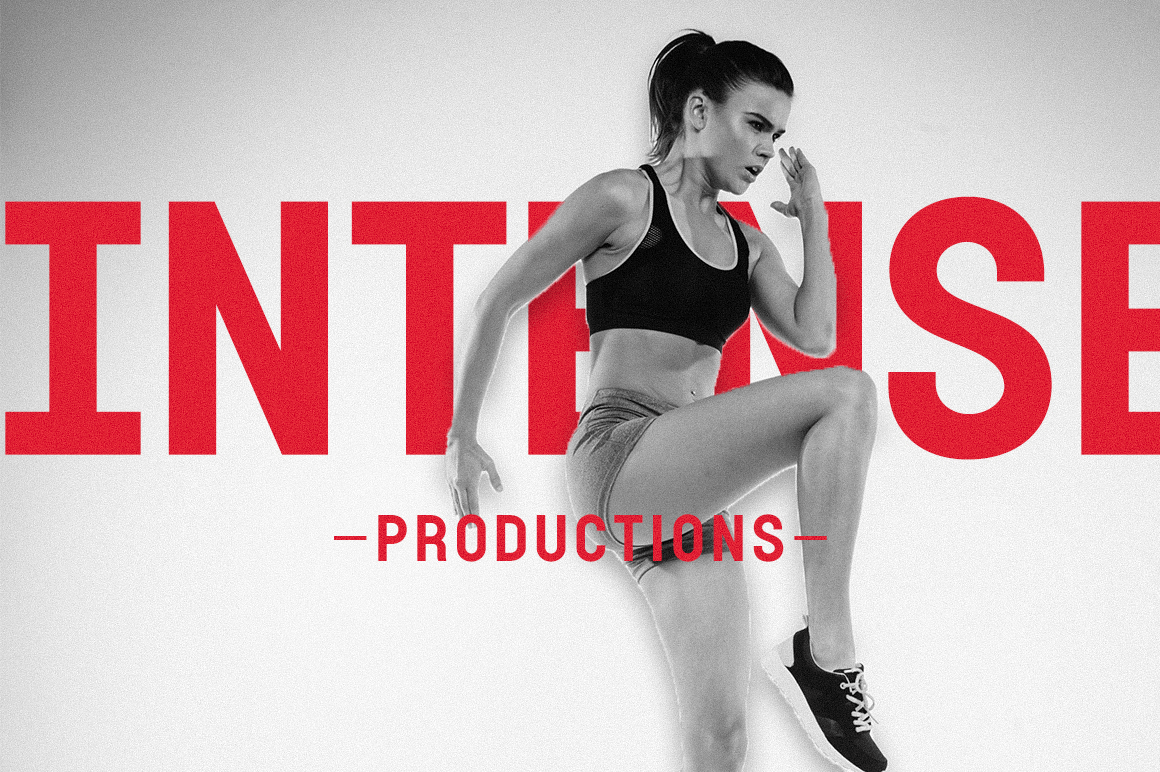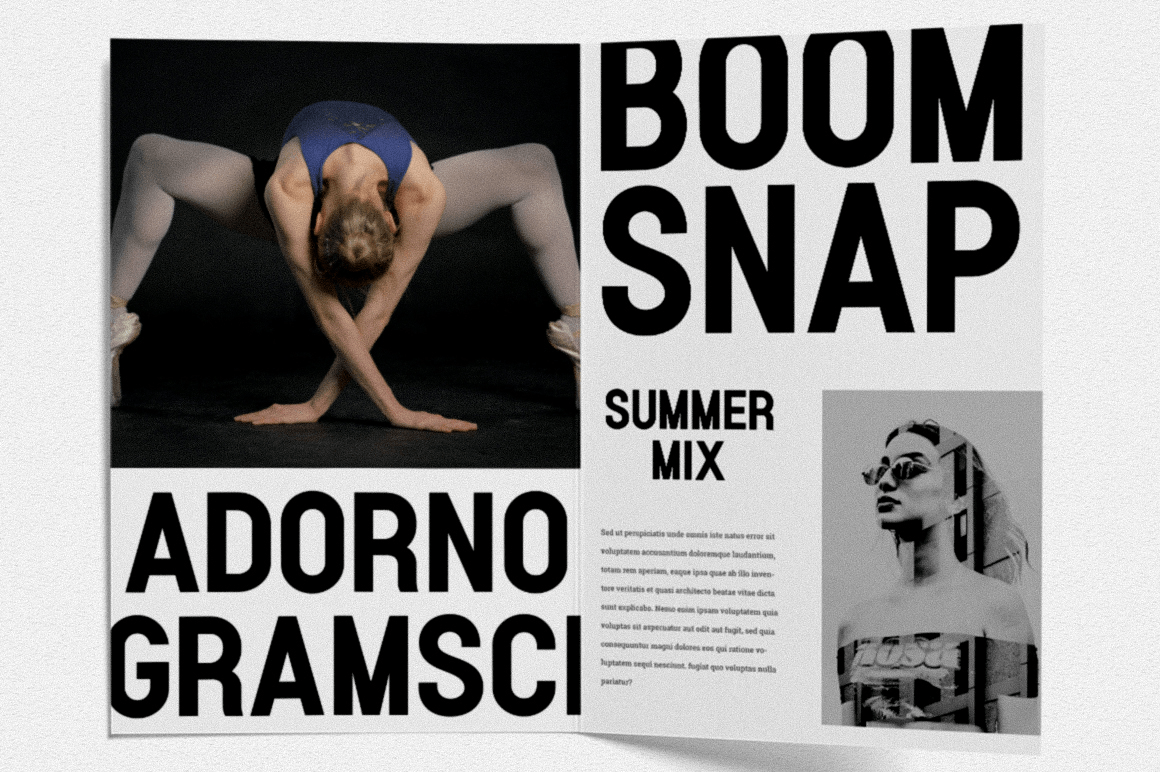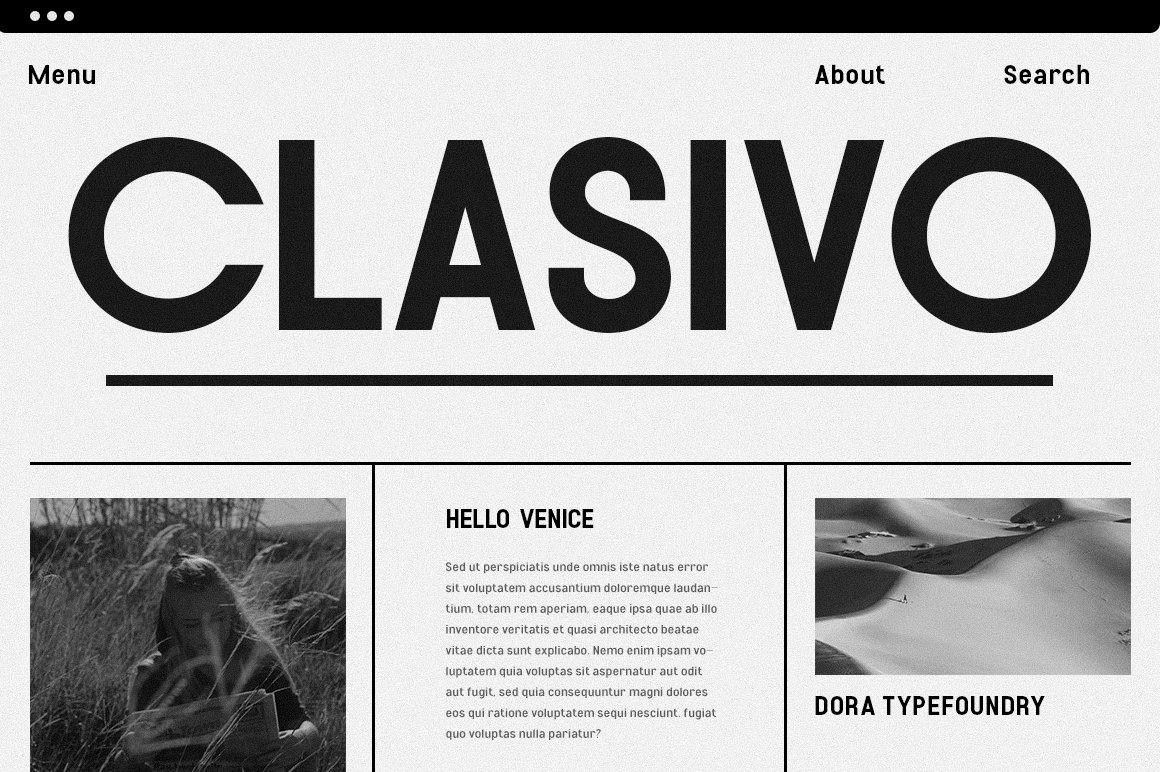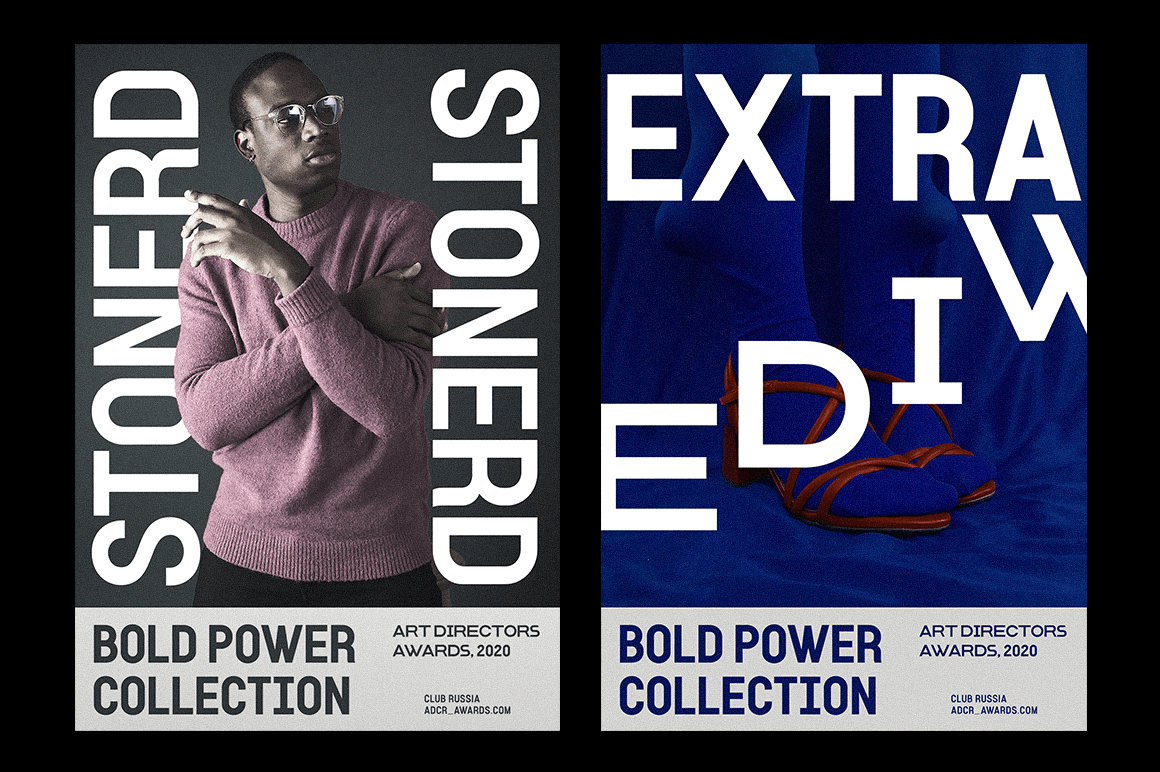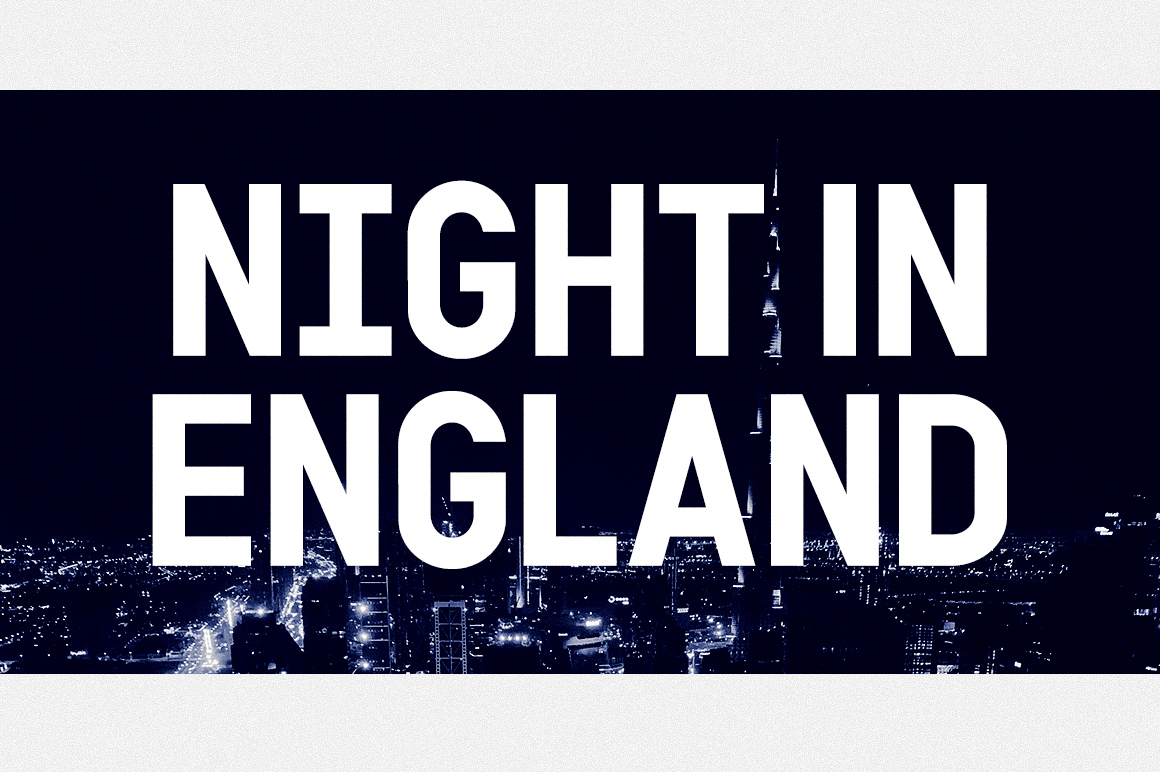
About Adecion
Introducing Adecion is designed for maximum visual and emotional impact. Its four weights excel in posters, social media, headlines, large format print – and anywhere else you want to get noticed. Hidden between straight lines and firm confidence is a…